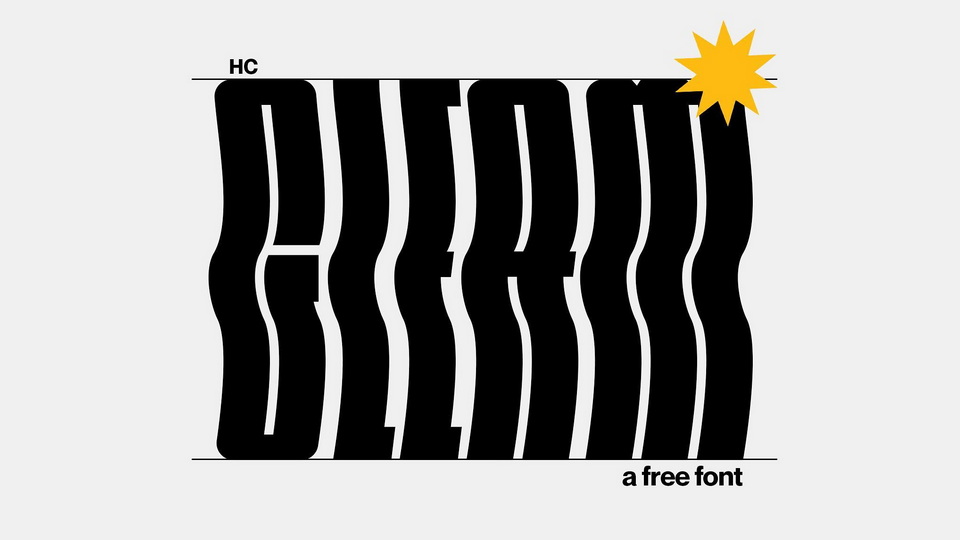
Feb 5, 2025DisplayHC Gleam Font HC Gleam is a creative display font inspired by the guiding light all around us. Heavy, wavy, and weird; but the sun doesn’t judge. Font DetailsDesigned by: Mitch ProctorWebsiteLicense: Free for commercial use Download HC Gleam FontFile size: 12.40 KBCreated: February 16, 2025Updated: February 16, 2025 Download Explore related fonts Woofie Koofie Font Kindness Font Flush Brush Font Greavard Font Baluthi Font Luciva Font Hend Cras Font Garned Font # Condensed# Creative# Playful